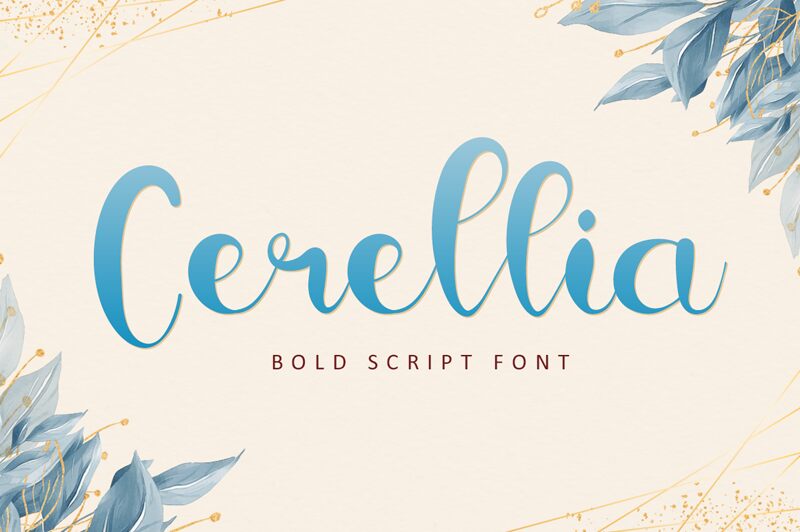
Cerellia, a charming semi-bold handwritten font designed by Illushvara, is perfect for projects that demand a personal touch. Whether you're working on invitations, greeting cards, or social media graphics, Cerellia's whimsical curves and playful lines are sure to delight your audience. Its gentle weight adds a touch of elegance to any design while maintaining its approachable charm. This versatile typeface can be used in a variety of settings, from marketing materials to wedding stationery. With Cerellia, you'll elevate your design with a unique and unforgettable touch.
Cerellia